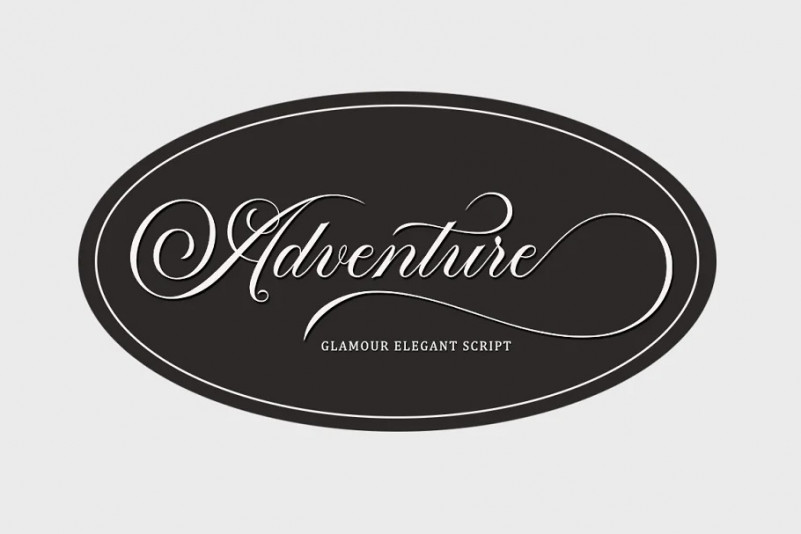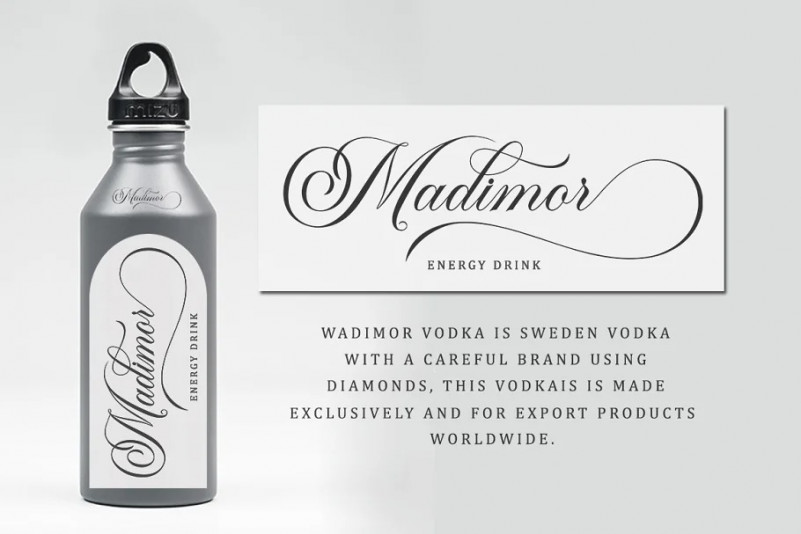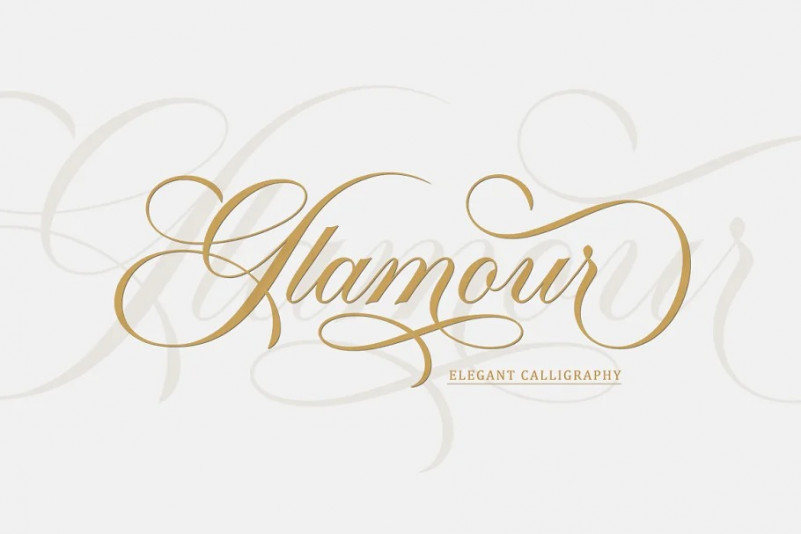
Glamour Font
Glamor Script is one of the Elegant script fonts that comes with a very beautiful character change, a kind of classic copper decorative script with a modern touch, designed with high detail to present an elegant style.
Glamor Script is interesting because the typeface is pleasing to the eye, clean, feminine, sensual, glamorous, simple and very easy to read, because of the many luxurious letter connections. I also offer a number of decent stylistic alternatives for some of the letters. The classic style is very suitable to be applied in various formal forms such as invitations, labels, restaurant menus, logos, fashion, make up, stationery, novels, magazines, books, greeting / wedding cards, packaging, labels or all kinds of advertising purposes. . .
Glamor has 428+ glyphs and 401 alternate characters, including multiple language support. With OpenType features with alternative styles and elegant ligatures. The OpenType features don’t work automatically, but you can access them manually and for best results your creativity will be required in combining variations of these Glyphs. I highly recommend using a program that supports OpenType features and the Glyphs panel such as Adobe Illustrator, Adobe Photoshop CC, Adobe InDesign, or CorelDraw, so that you can view and access all variations of Glyphs.